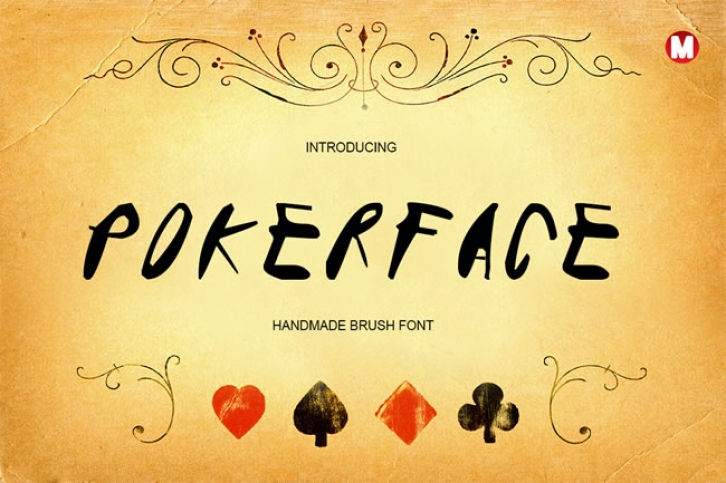
‘Pokerface’ is a handmade brush font. Perfect for designing invitations, greeting cards, branding materials, business cards, quotes, posters and more!